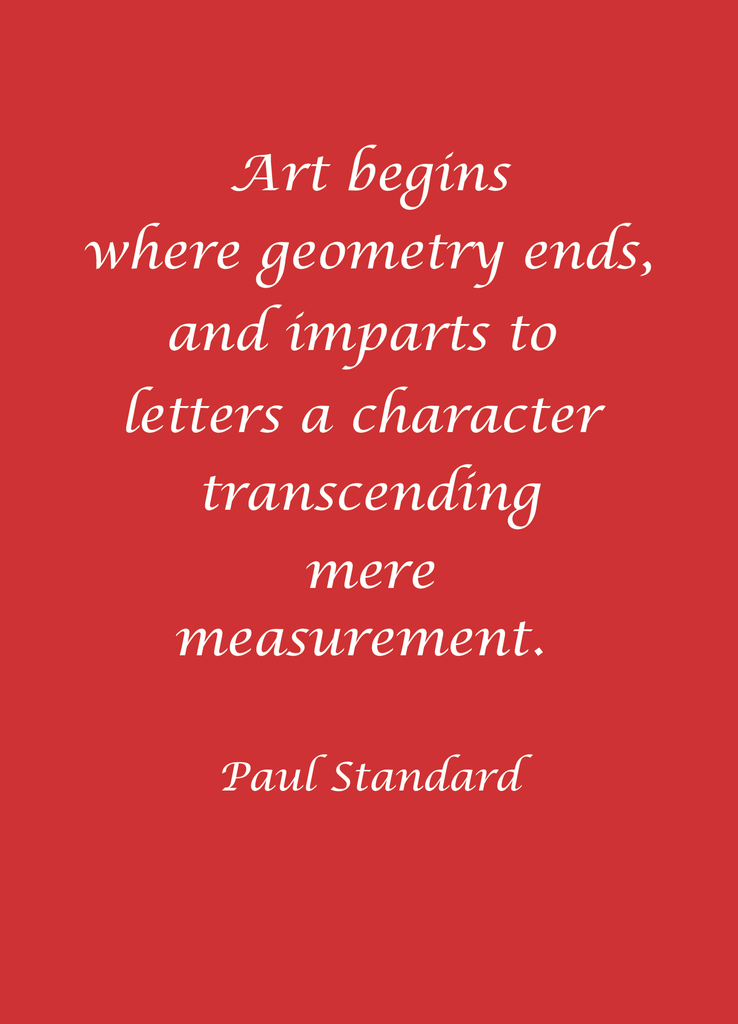
Lucida Calligraphy Fonts
Lucida Calligraphy Fonts - Lucida calligraphy is a chancery cursive script typeface family designed by kris holmes and. Lucida calligraphy is a chancery cursive script typeface family.
Lucida calligraphy is a chancery cursive script typeface family designed by kris holmes and. Lucida calligraphy is a chancery cursive script typeface family.
Lucida calligraphy is a chancery cursive script typeface family. Lucida calligraphy is a chancery cursive script typeface family designed by kris holmes and.
Lucida Calligraphy Is A Chancery Cursive Script Typeface Family.
Lucida calligraphy is a chancery cursive script typeface family designed by kris holmes and.